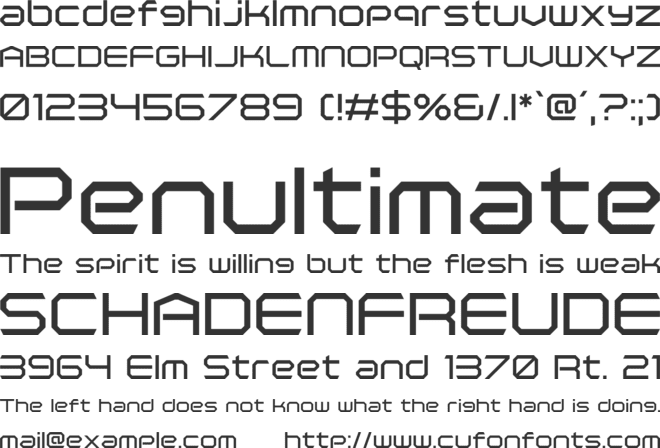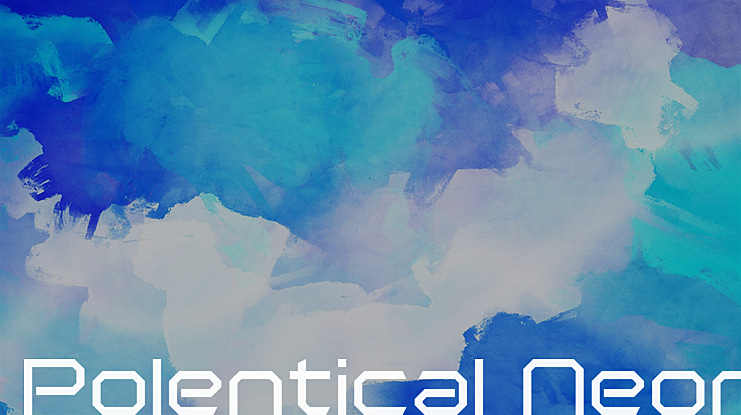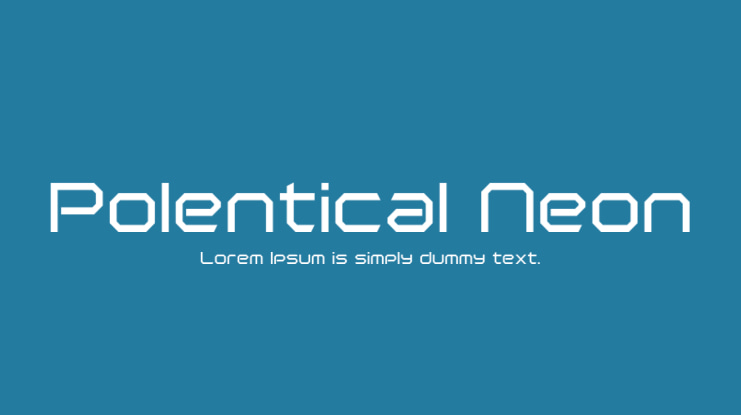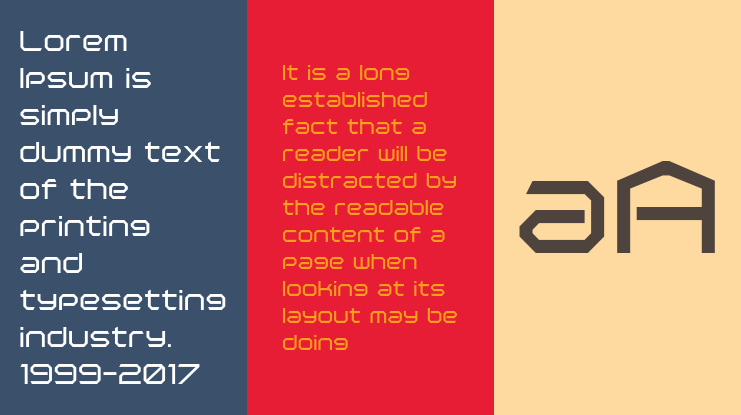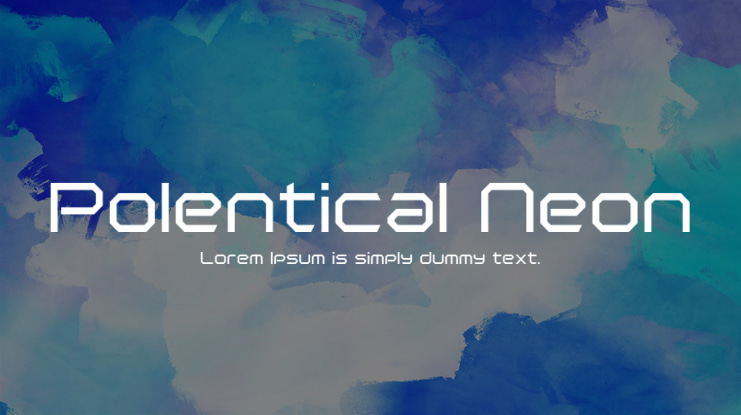
Polentical Neon Font Family
Jayvee D. Enaguas (Grand Chaos)
Created and edited By: Jayvee D. Enaguas (Grand Chaos)
Description: Polentical Neon is a post modern / square font style.
Update Log:
Version 1.2 - 5/5/2013 - Modified from square to sharp - Fixed in bold 'L' correctly
Version 1.1 - 4/21/2013 - Added in Bold and Bold Italic Styles - Fixed in metrics from 200 to 100